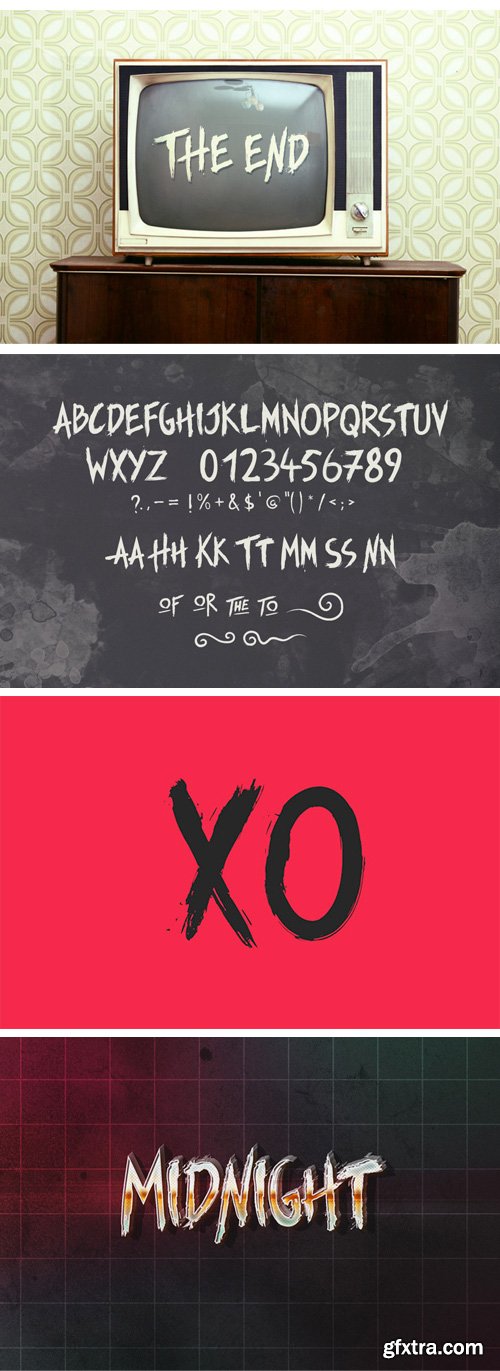
CM - Manticore Brush Font 175131
- A bold brush/marker font in all caps. Includes numerals, punctuation, couple of extra glyphs and alternates for some letters. I've found the font great for '80s style prints, horror themed stuff or any punk/grunge/urban themed graphics.